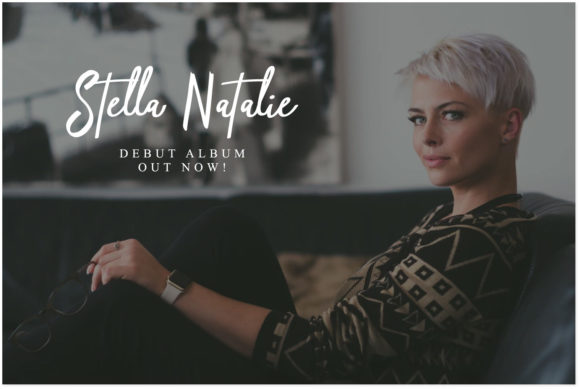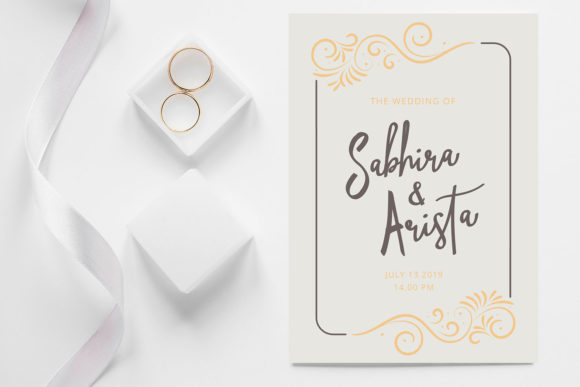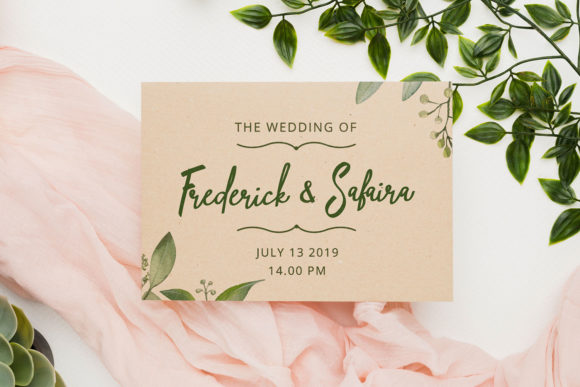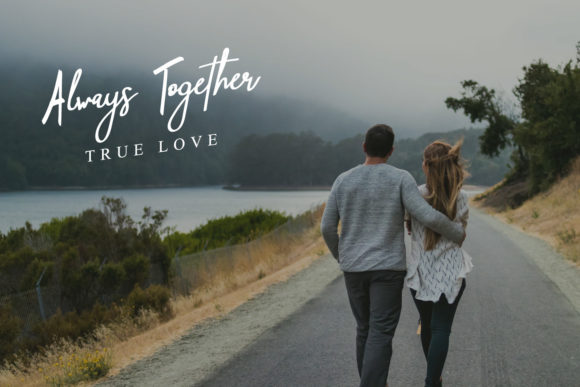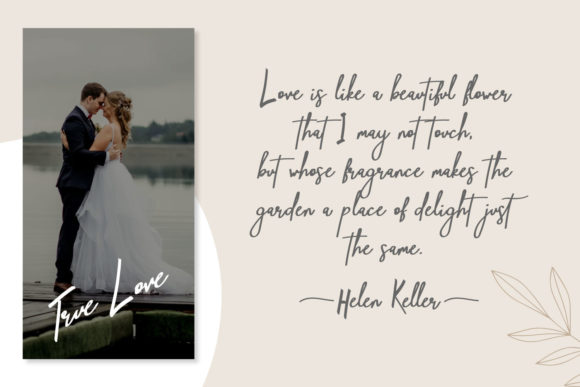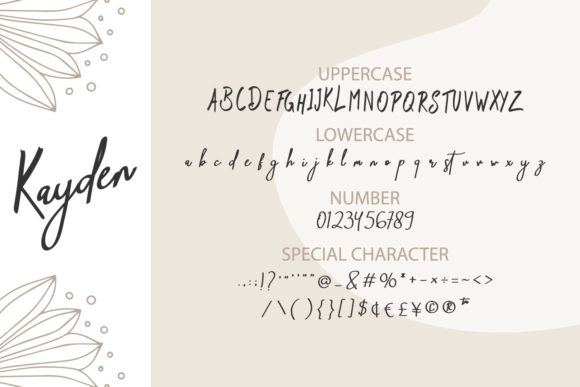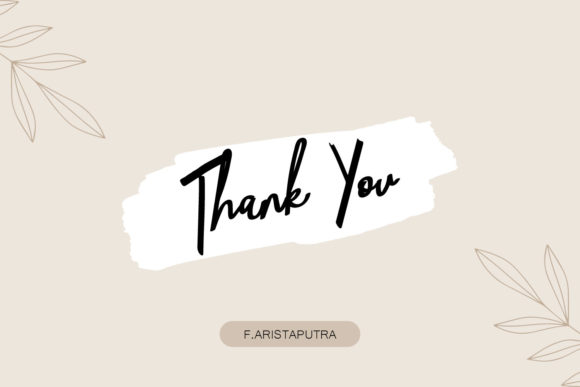
Kayden Font
About Kayden Font
Kayden is a beautiful and cool handwritten font, featuring a lovely style. No matter the topic, this font will be an incredibly asset to your fonts’ library, as it has the potential to elevate any creation.